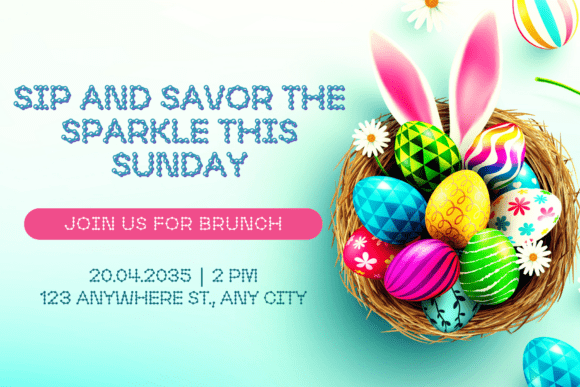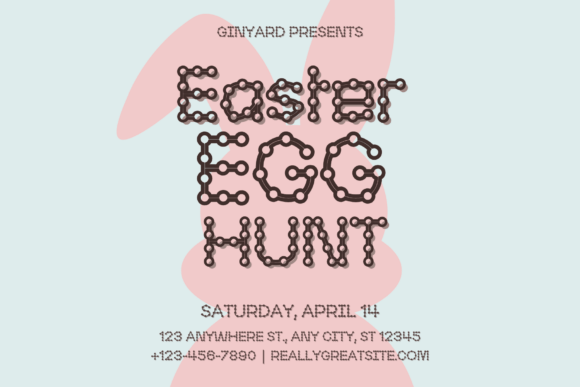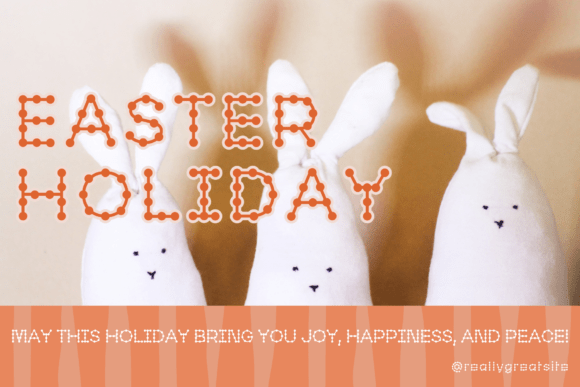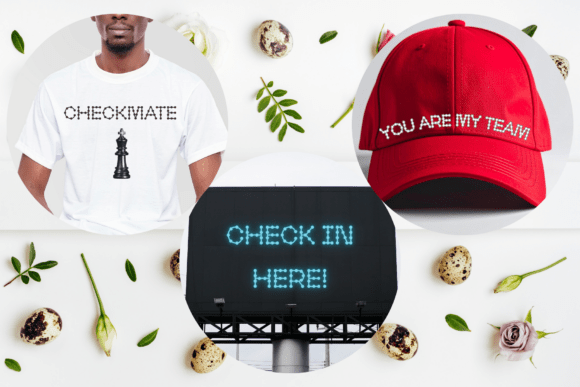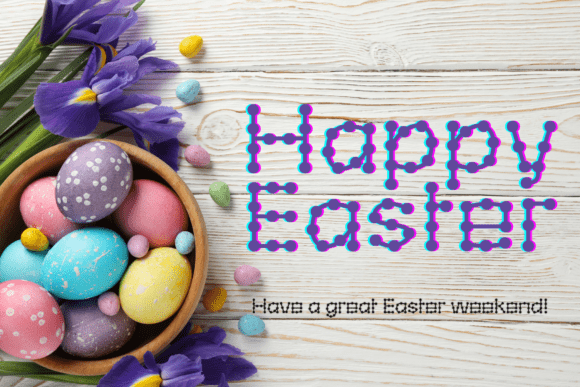
Hop into Creativity with Easter Dot Line Font
I’ll never forget the Easter project that got me hooked on the Easter Dot Line font. I was working on a last-minute Easter greeting card design for a client, and I just couldn’t find the right font to capture the playful, festive spirit of the holiday. That was until I stumbled upon this adorable dot line font that instantly transported me to a world of colorful Easter eggs and springtime joy. If you’re a designer, crafter, or creative hobbyist looking for a fun and playful font to add some Easter cheer to your projects, you’re in the right place!
A Fun and Festive Font for Easter and Spring
Easter Dot Line is a decorative font that’s inspired by the joyful spirit of Easter. Each letter is built with connected round dots that resemble tiny Easter eggs linked together, creating a charming and festive look. This font is perfect for Easter and spring-themed projects such as greeting cards, party invitations, kids’ crafts, t-shirts, stickers, Cricut and sublimation designs.
What I Love About Easter Dot Line Font
- ✨ Cute and playful design: The Easter Dot Line font is perfect for adding a touch of whimsy and fun to your designs.
- ✅ Easter and spring-themed: The font’s Easter egg-inspired design makes it perfect for seasonal projects.
- 🎨 Versatile: You can use this font for a variety of projects, from greeting cards to t-shirts and stickers.
- 👍 Easy to read: Despite its playful design, the font is easy to read and works well for both headings and body text.
While I absolutely love the Easter Dot Line font, there are a few small quirks to be aware of:
- 🤔 Limited character set: As a decorative font, Easter Dot Line may not have an extensive character set, so it’s best suited for short texts and headings.
- ⚠️ Not suitable for body text: While the font is easy to read, it’s not suitable for long blocks of body text due to its playful and decorative nature.
The Story Behind Easter Dot Line Font
Easter Dot Line was designed by a team of creatives who wanted to capture the playful and festive spirit of Easter. Inspired by the joy and excitement of the holiday, they created a font that’s perfect for adding a touch of whimsy to your designs.
| What is Easter Dot Line font? | Easter Dot Line is a decorative font inspired by the joyful spirit of Easter. |
| What can I use Easter Dot Line font for? | Easter Dot Line is perfect for Easter and spring-themed projects, such as greeting cards, party invitations, kids’ crafts, t-shirts, stickers, Cricut and sublimation designs. |
| Is Easter Dot Line font easy to read? | Yes, Easter Dot Line is easy to read, making it perfect for headings and short texts. |